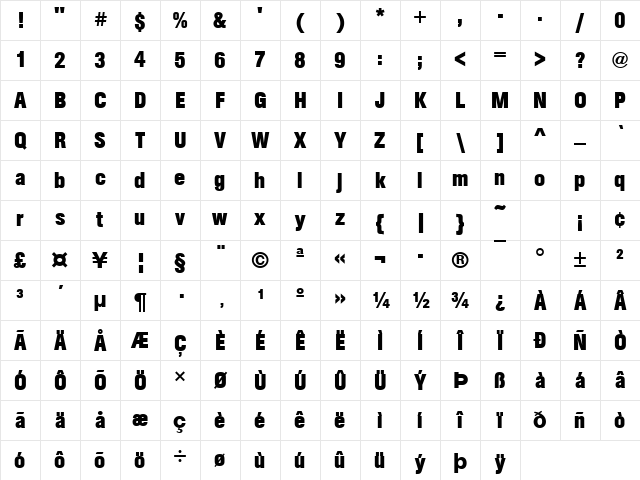
URWAccidaliaBucDCon Bold
Complete URWAccidaliaBucDCon Bold glyph index. Displaying only characters natively supported by URWAccidaliaBucDCon Bold font.
Design Context for URWAccidaliaBucDCon
URWAccidaliaBucDCon is a composed and adaptable typeface that performs quietly and consistently across a wide range of design contexts. Its bold stroke weight gives it real presence on the page.